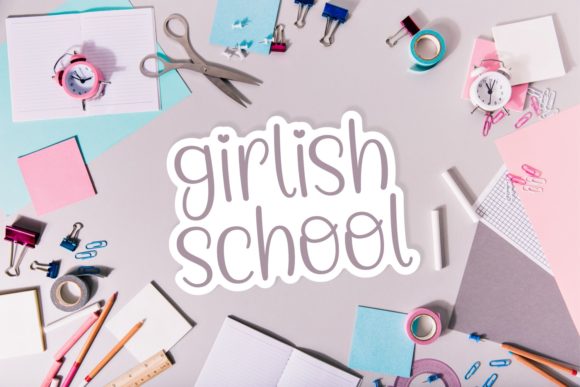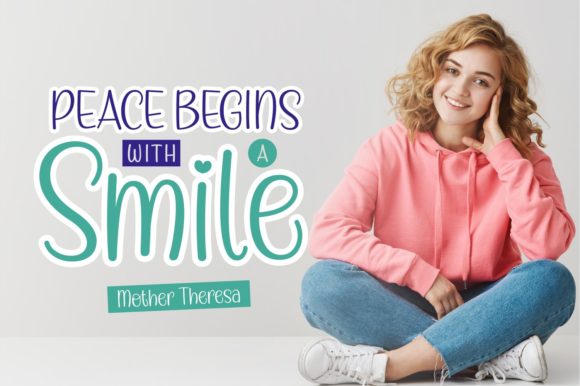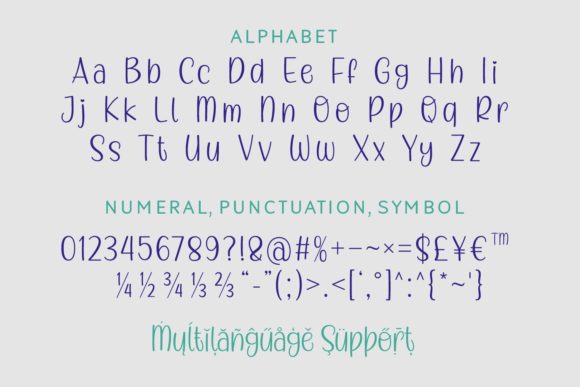
Have you ever been in the middle of a project, staring at your computer screen, and just can’t seem to find the right font to capture the mood and tone you’re going for? We’ve all been there. The frustration of scrolling through endless font options, trying to find that one perfect fit, can be overwhelming. But what if I told you there’s a font that’s sure to make picking the perfect font a breeze?
Meet the Comfy Sunshine Font, a thin-line handwritten style font that’s designed to bring a touch of warmth and personality to your designs. With its smooth characters and effortless whisps, this font is perfect for adding a laid-back, sun-kissed feel to your projects. Whether you’re a seasoned designer or just starting out, the Comfy Sunshine Font is a valuable addition to any design toolbox.
Comfy Sunshine Font Key Features
- Unique Characteristics: The font features a distinctive, hand-drawn feel with rounded edges and soft lines, creating a warm and inviting atmosphere in any design.
- Legibility: Comfy Sunshine Font is designed for optimal legibility, making it perfect for body text, headings, and titles in various design applications.
Comfy Sunshine Font Review
I recently had the chance to work with the “Comfy Sunshine Font”, and I must say it’s a mixed bag. Let’s start with the positives ✨. This font is perfect for creating a warm and inviting atmosphere in your designs. The rounded edges and subtle curves give it a friendly feel that’s hard to resist. I also appreciate the wide range of weights and styles available, which makes it easy to customize to your needs.
Some of the standout features of this font include:
- Beautiful rounded edges that add a touch of whimsy to your designs
- Subtle curves that create a sense of movement and flow
- A wide range of weights and styles to choose from
- Perfect for creating a warm and inviting atmosphere
However, there are some limitations to consider ⚠️. The font can feel a bit too playful and childish at times, which may not be suitable for all designs. Additionally, the bold weights can be a bit too heavy-handed, making the text feel dense and overwhelming. It’s also worth noting that the font may not be as readable on smaller screen sizes, which could be a concern for mobile designs.
Overall, I think the “Comfy Sunshine Font” is a solid choice for designs that require a warm and inviting tone. While it may not be perfect for every project, it’s definitely worth considering for the right kind of design. Just be mindful of the limitations and take the time to customize it to your needs.
Comfy Sunshine Font: A Practical Application Guide
Getting the Most Out of Comfy Sunshine Font
To get the most out of Comfy Sunshine Font, use it for designs that require a friendly and approachable tone, such as:
– Social media posts and ads
– Branding materials (e.g., logos, business cards)
– Print materials (e.g., brochures, flyers)
– Digital signage and displays
Comfy Sunshine Font is ideal for designs that require a cheerful and welcoming tone. Use it for:
– Children’s products and services
– Wellness and self-care brands
– Food and beverage businesses
– Travel and tourism companies